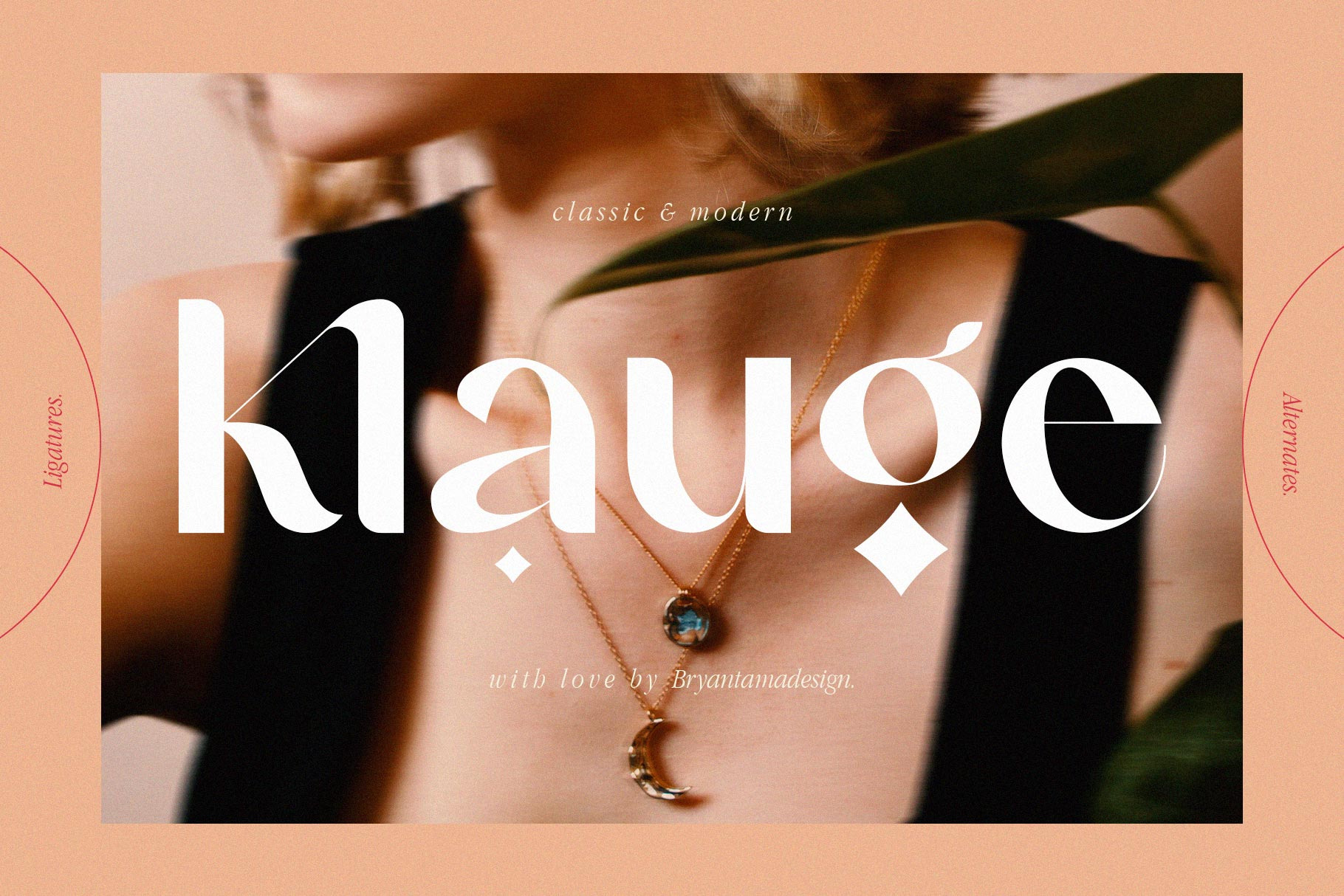
Klauge - Classic & Modern Font
Introducing Klauge. Classic & Modern Font.
Inspired by a classy theme with magical feels that makes the font has a unique personality, you can use it for branding, social media, posters, packaging, & more.
Opentype Features (Alternates & Ligatures).
Elevate your designs with Klauge Font, a sophisticated display font defined by sleek lines and refined curves. Crafted for high-end branding, editorial layouts, and luxury packaging, it delivers an effortless sense of class and exclusivity. What a Beauty!